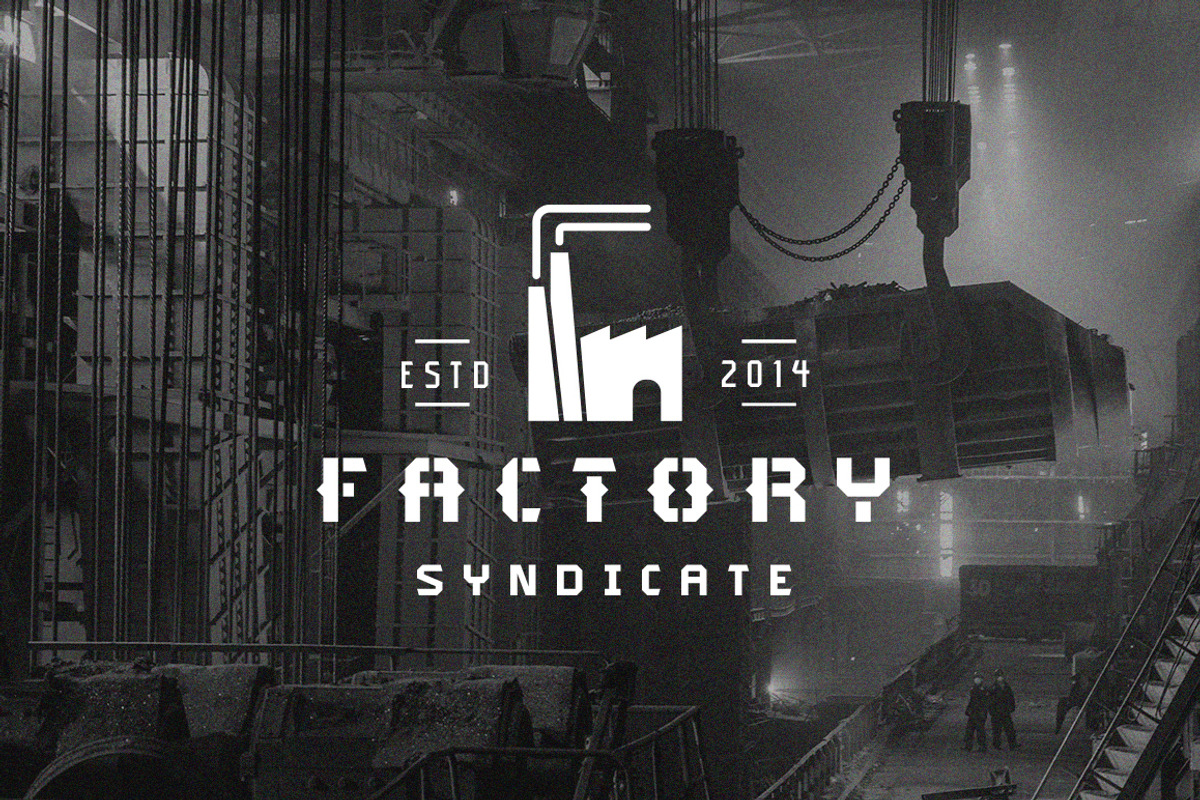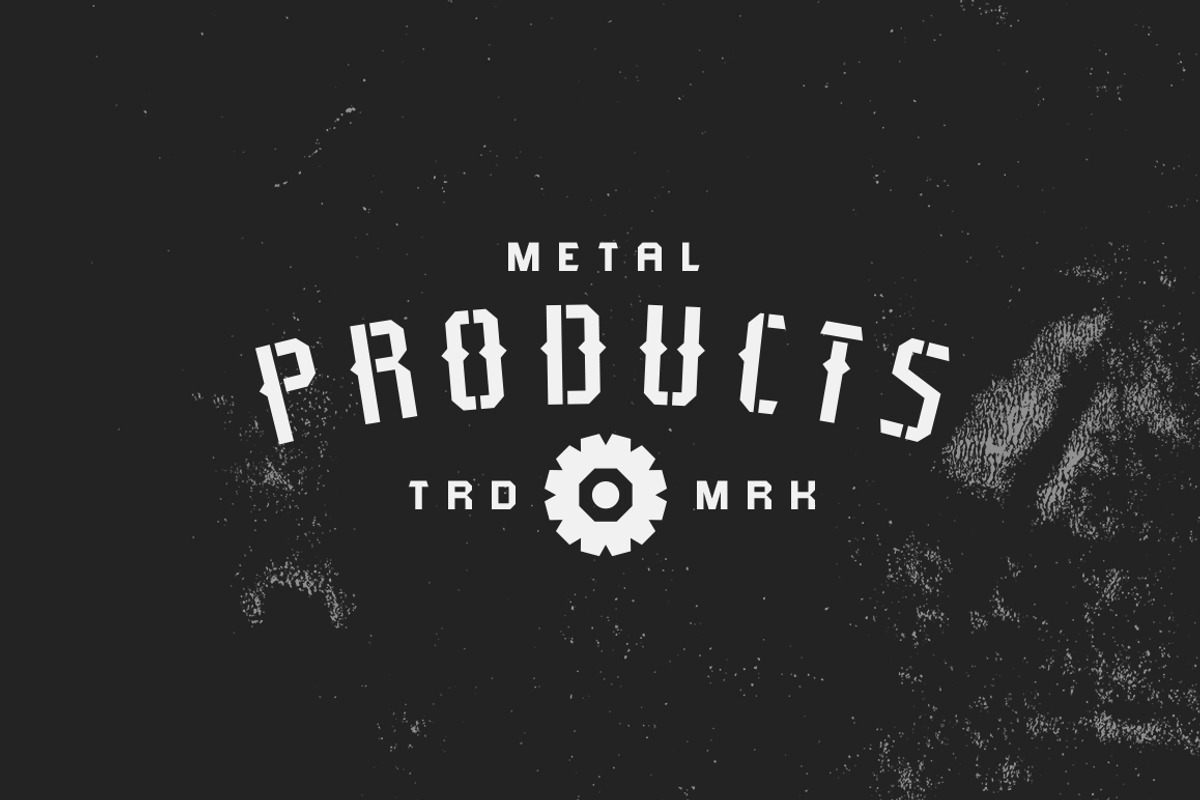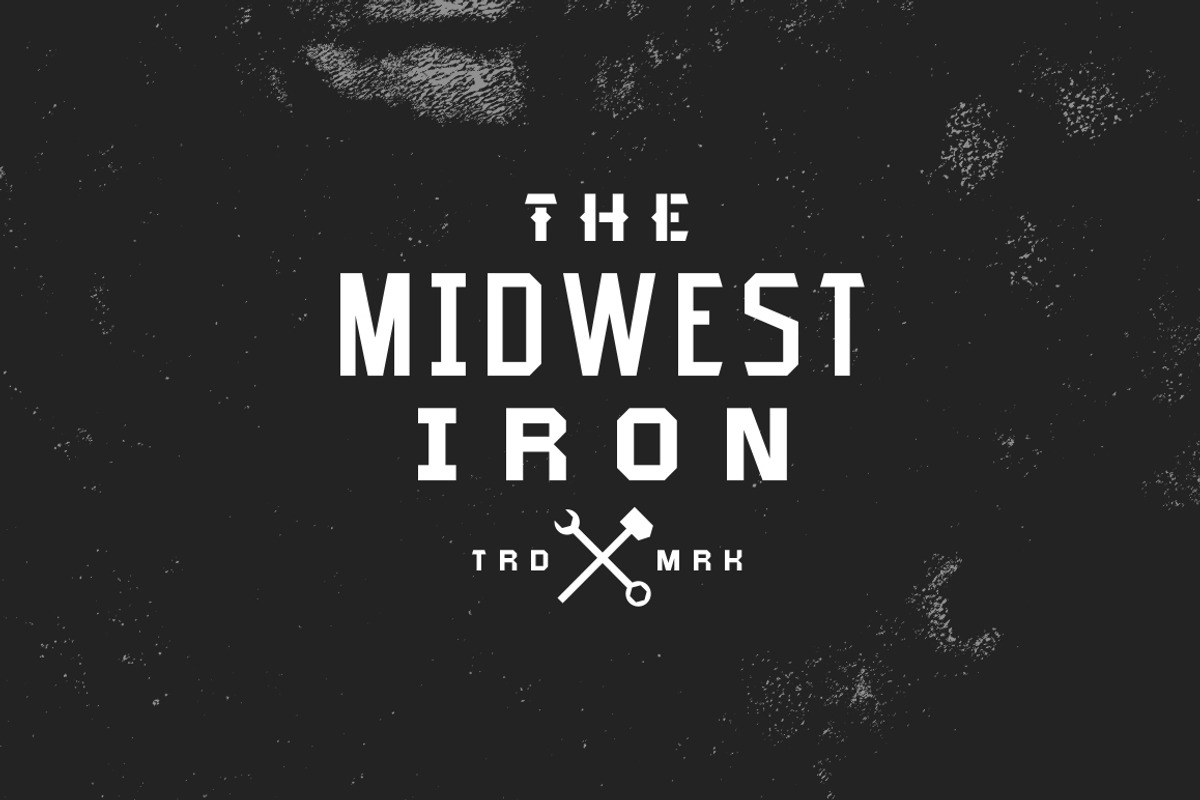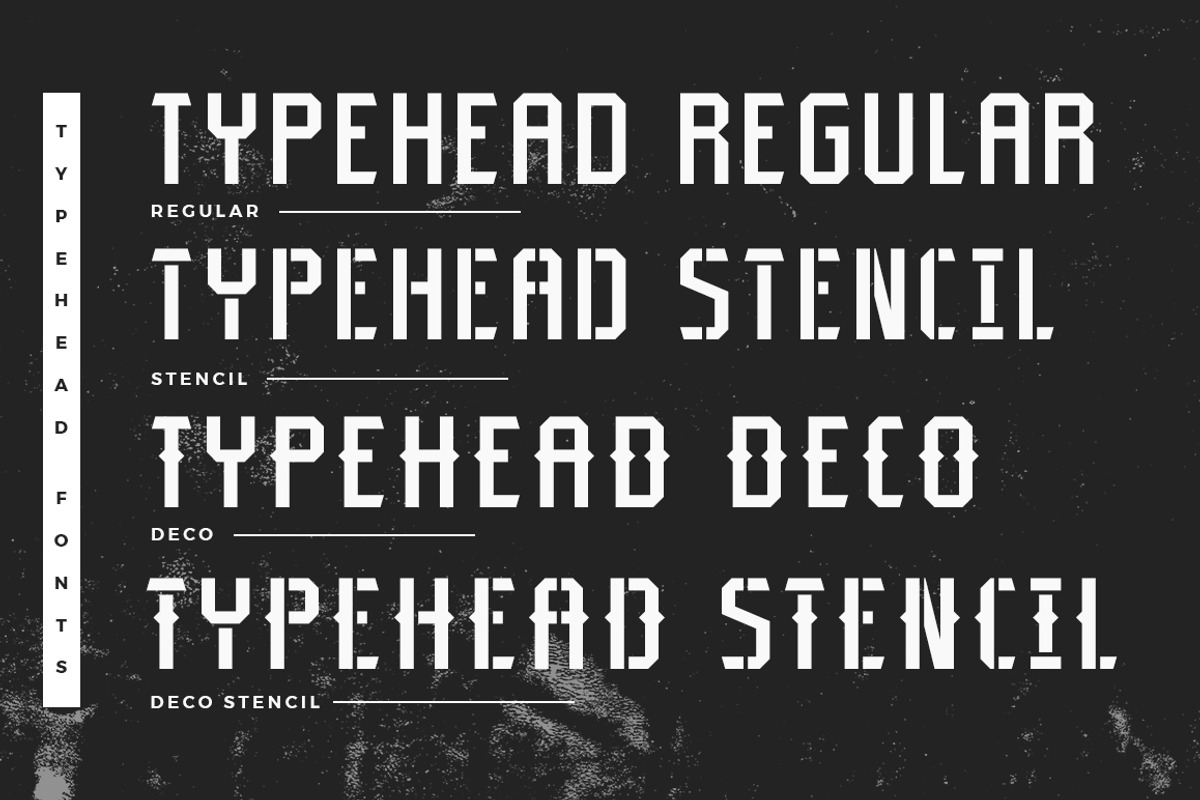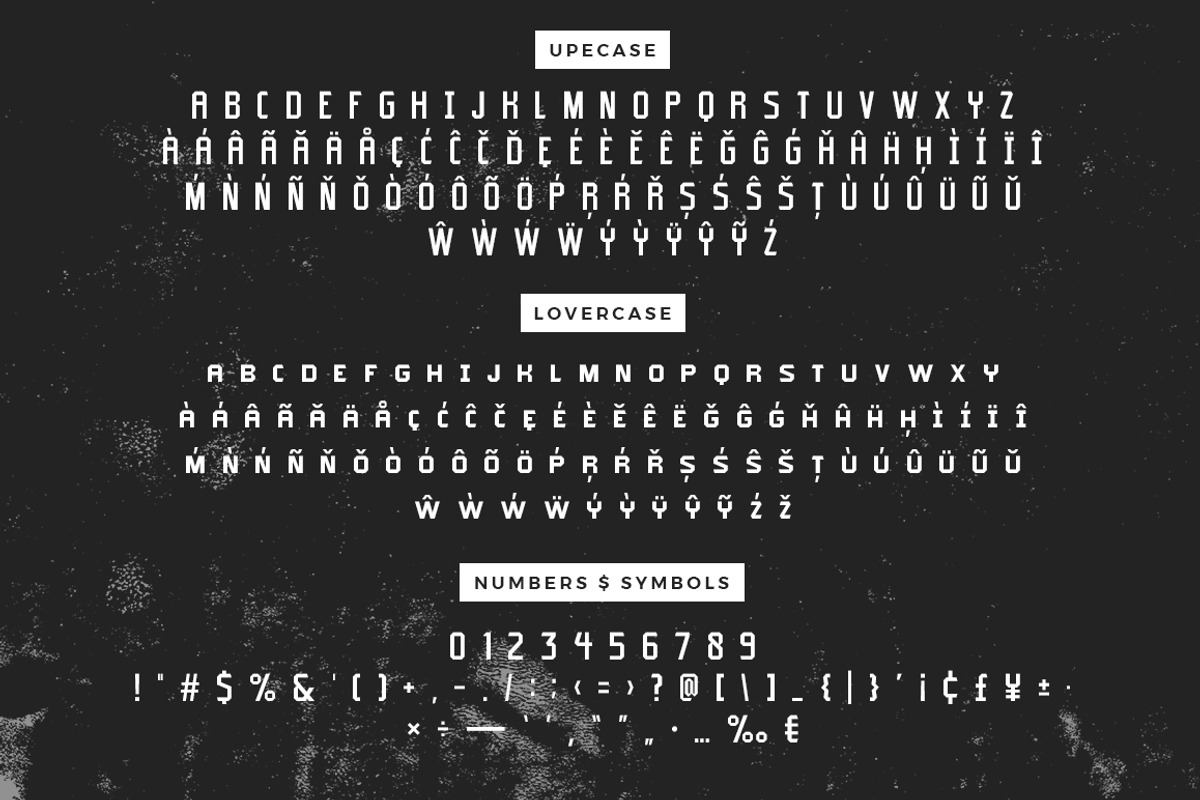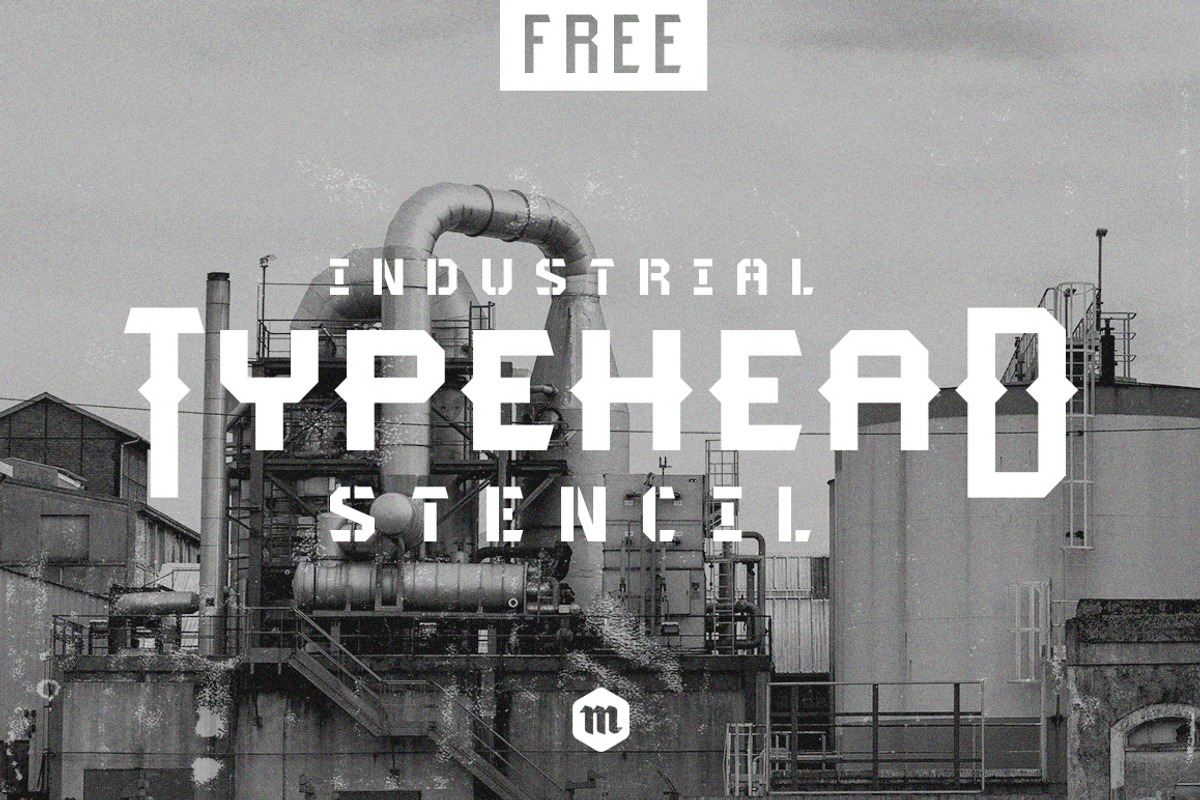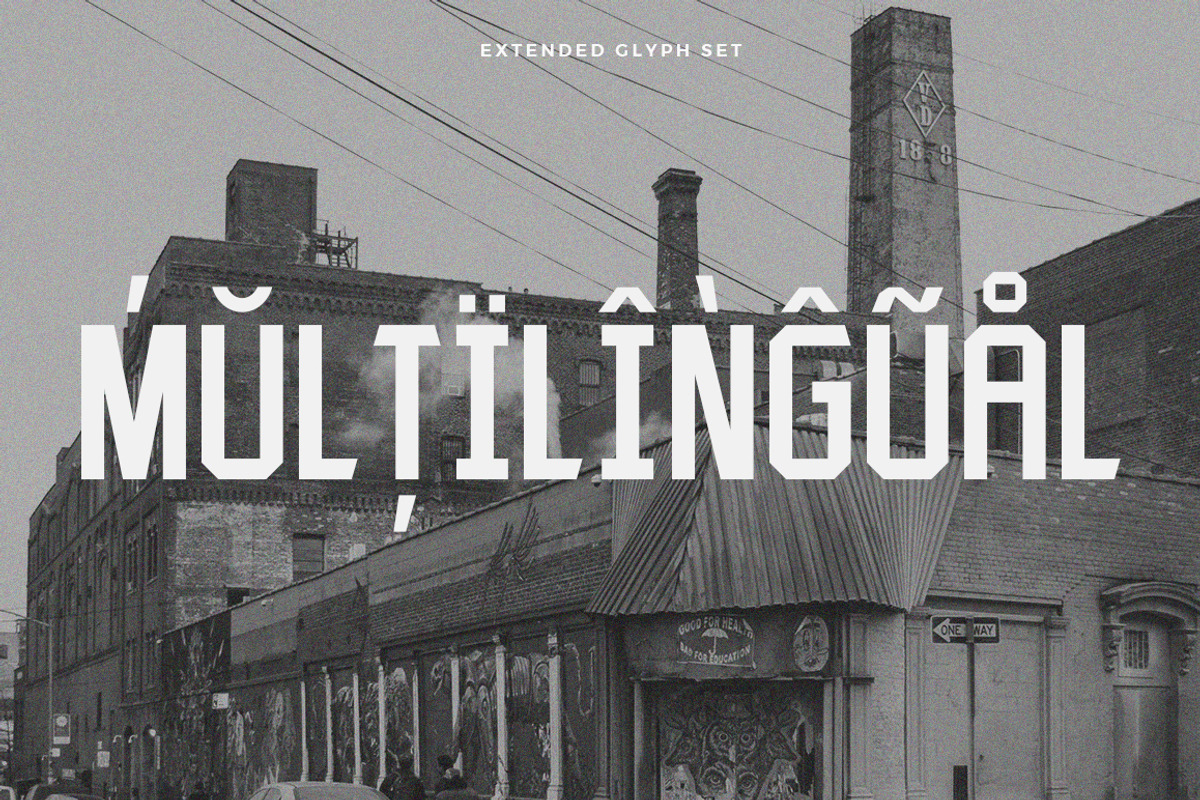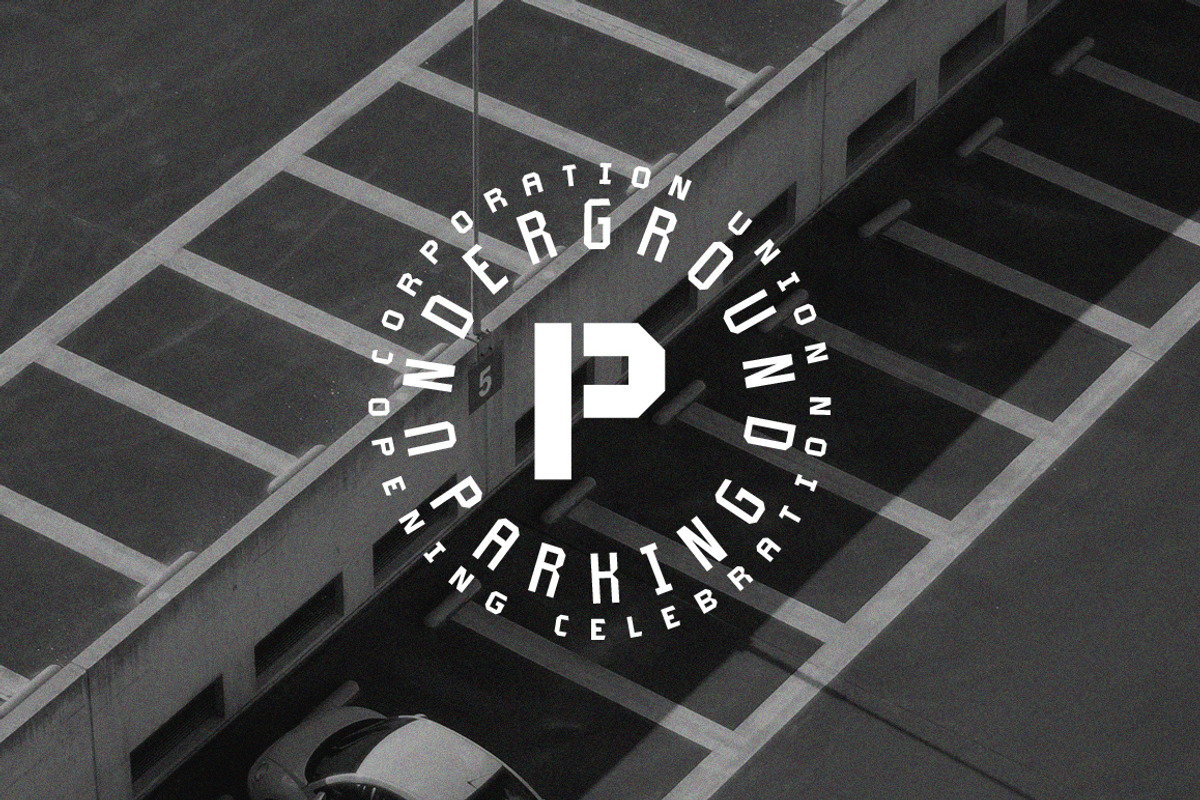
Typehead Industrial Stencil | Font
TYPEHEAD, is a bold industrial inspired design typeface of four fonts. The family consists in two sans serif styles Regular, Deco and their stencil counterparts. Each font has an uppercase and lower uppercase alphabet, 252 glyphs and extensive Latin script support. Typehead is contemporary, versatile and distinctive. The hard, full bodies with geometric edges and spiky crossbars deliver the perfect mix of contemporary typography and industrial design. Furthermore, having the stencil display versions, Typehead is unique in it`s interpretations with a lot of possible calligraphic options and combinations. This typeface is the perfect tool for creative industrial inspired designs, impactful title designs or for any project that requires a industrial, strong touch.
Typehead Regular Stencil
Typehead Deco Stencil
Extensive Latin script language support
Upper and lower uppercase font
- Each font has an uppercase and lower uppercase alphabet, 252 glyphs and extensive Latin script support.